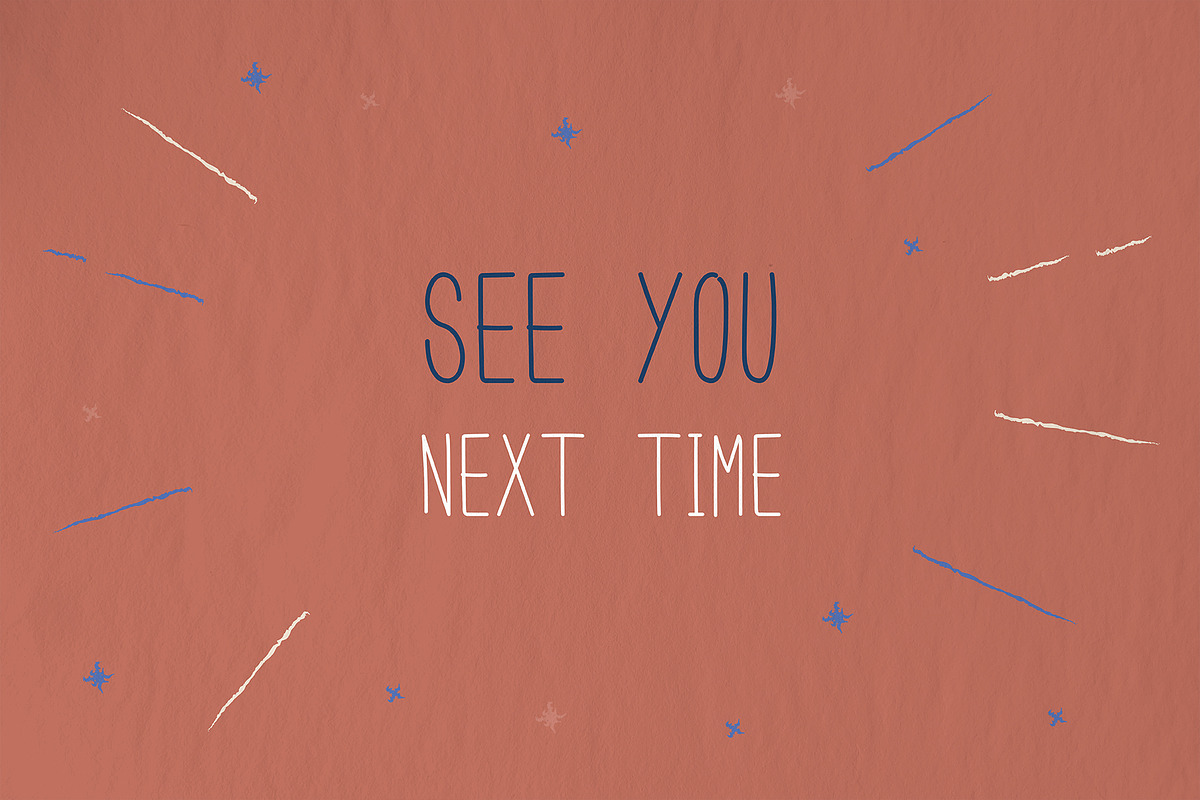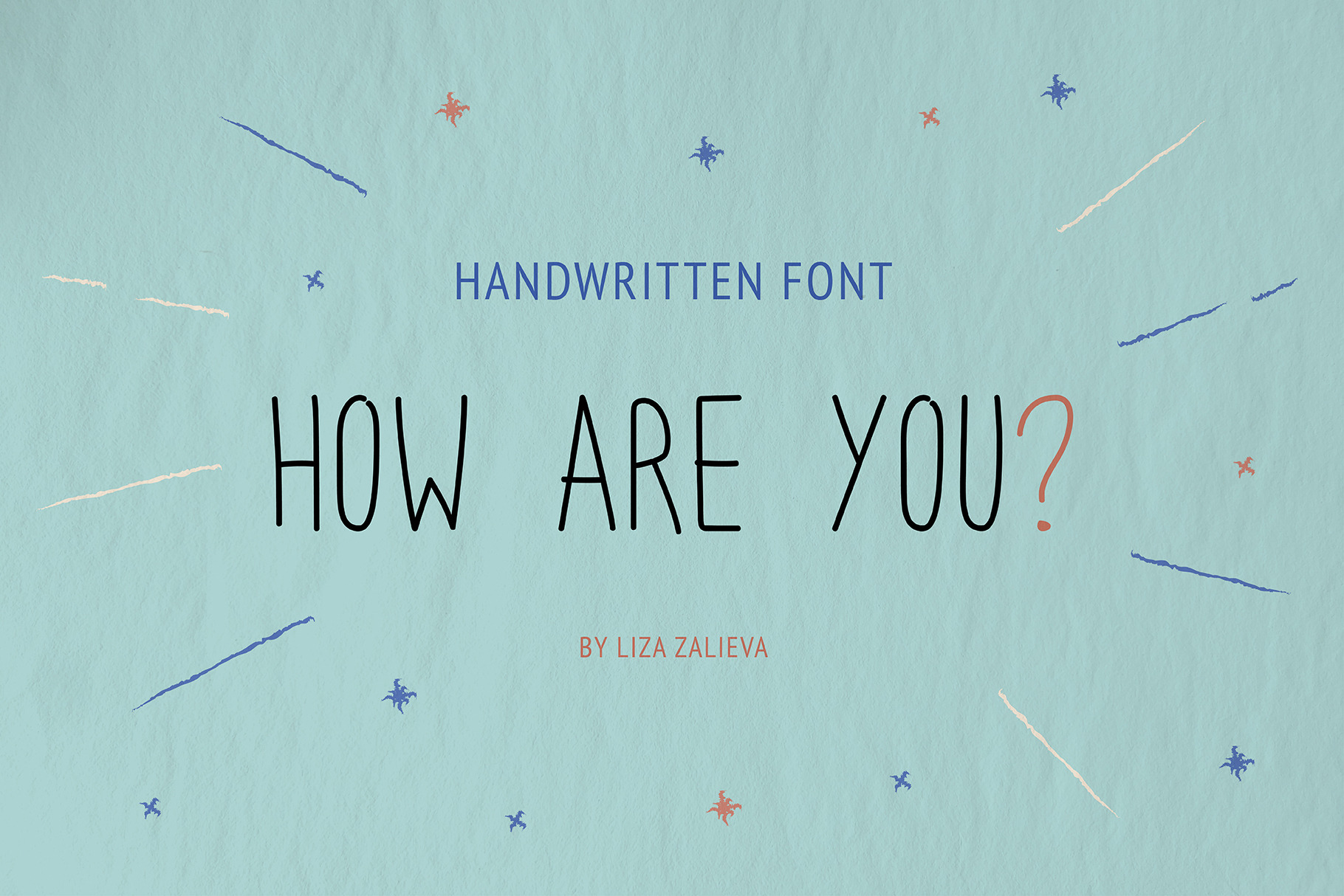
** SPRING SALE** How are you? ~ font
Meet the new font «How are you»! This is a modern, super versatile font that is suitable for a wide variety of projects. As a designer, I always looked for such a font, a little playful, but balanced. This is an ideal font for headlines, it is also great for logos, printed materials in magazines, and for social media. And unlike many, it is also presented in the Cyrillic version.